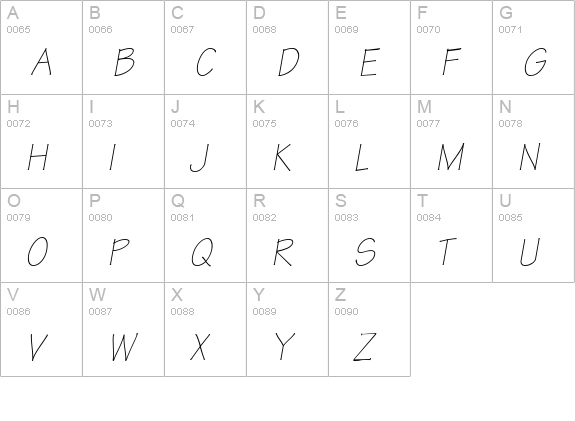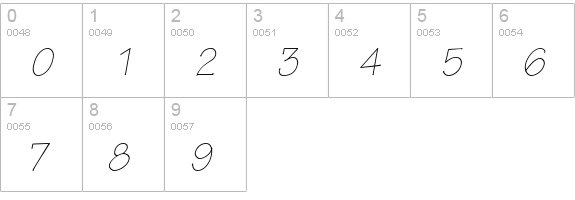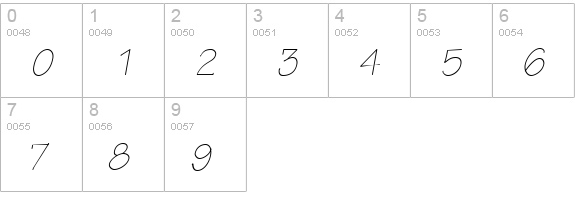
Tekton Pro Light Oblique Font Details
Tekton Pro Light Oblique is a refined, elegant, italic variant in the Tekton typeface family \xE2\x80\x94 well suited to elegant body text, refined sub-headings, and luxury branding.
Tekton Pro Light Oblique is a timeless and versatile font that effortlessly combines elegance and functionality. With its sleek and slanted design, this font exudes a sense of sophistication and modernity. Whether used for titles, headings, or body text, Tekton Pro Light Oblique adds a touch of stylish flair to any project. This font's unique oblique style adds a dynamic and eye-catching element to any design. Its clean and legible letterforms make it perfect for both print and digital applications. The slender and slightly slanted characters create a sense of movement and energy, capturing attention without overwhelming the reader. One of the most appealing aspects of Tekton Pro Light Oblique is that it is free. That's right, this font can be freely downloaded from FontsMarket.com. This means that you can easily incorporate this stunning font into your designs without any additional cost. Whether you are a professional designer or a hobbyist, having access to high-quality fonts like Tekton Pro Light Oblique can greatly enhance your creative projects. With its vast range of potential uses, Tekton Pro Light Oblique is an excellent choice for a variety of design projects. From branding and advertising to packaging and web design, this font is versatile and adaptable. Its sleek and contemporary aesthetic makes it suitable for a wide range of industries, including fashion, technology, and lifestyle. So why wait? Take advantage of the opportunity to download Tekton Pro Light Oblique for free at FontsMarket.com. Elevate your designs with this elegant and captivating font, and unleash your creativity to new heights.